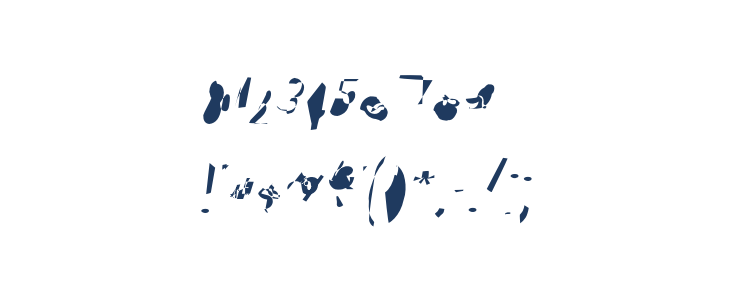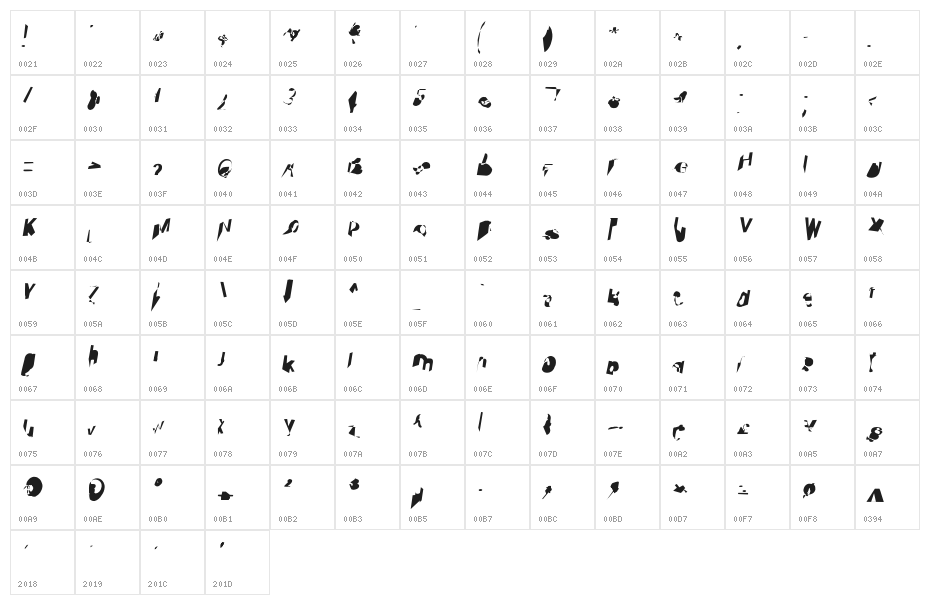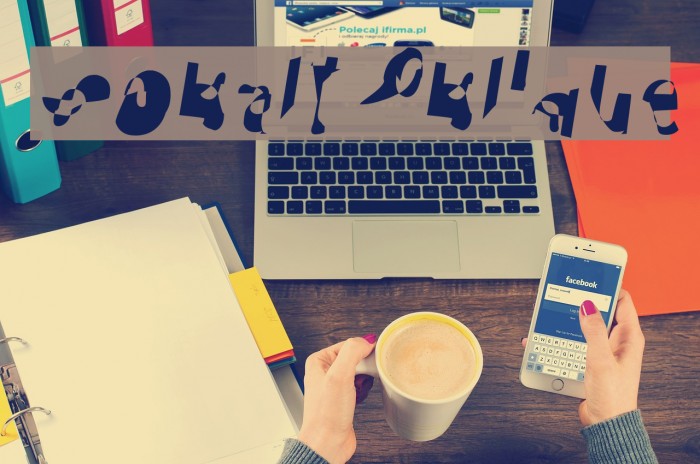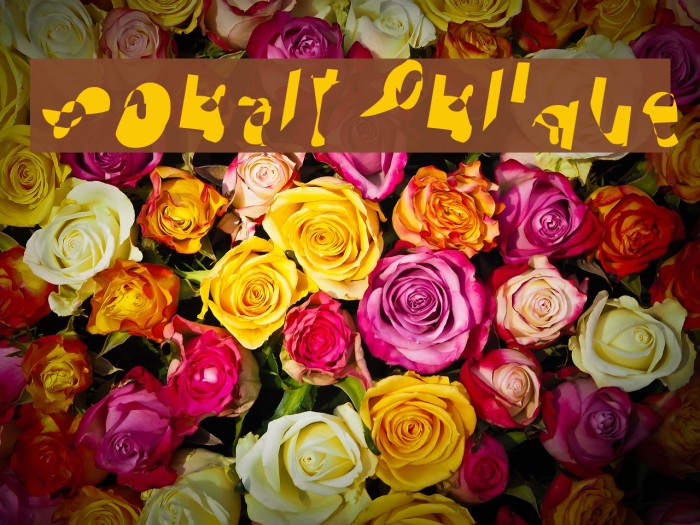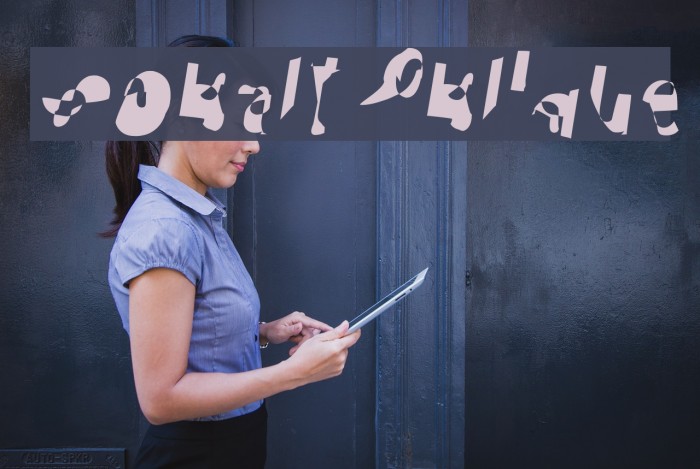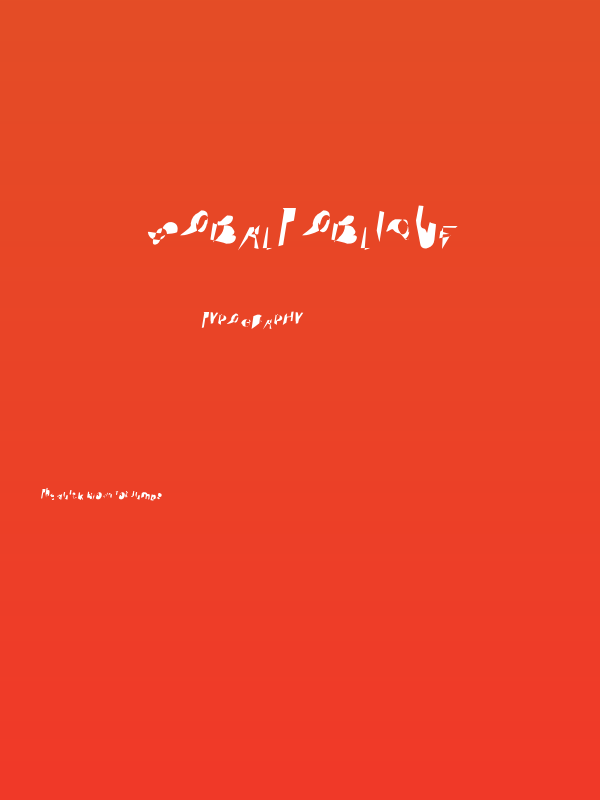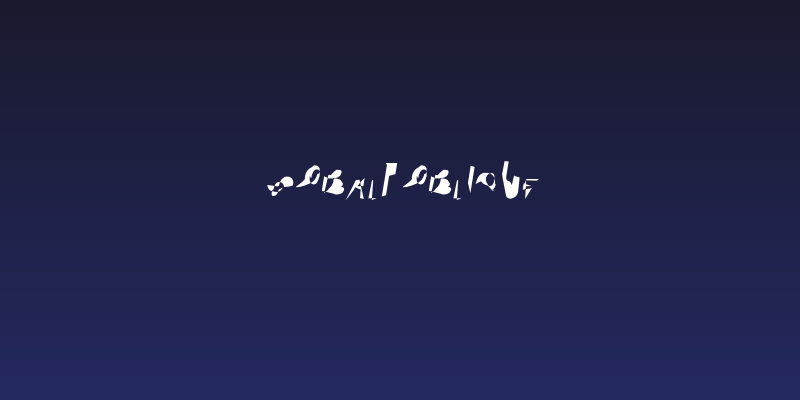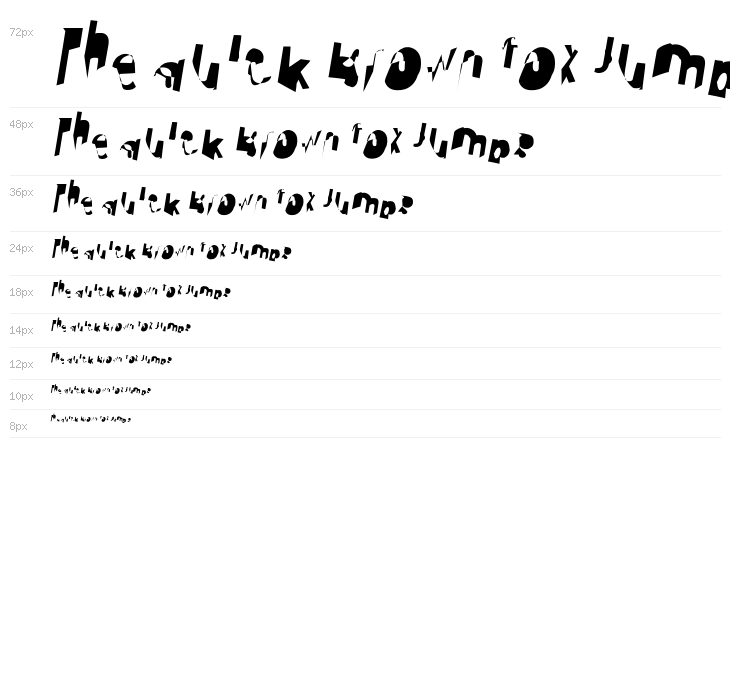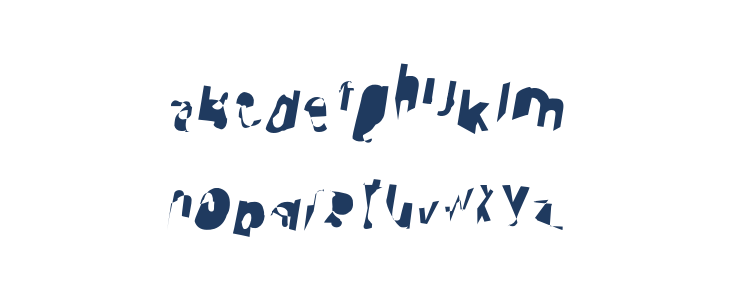
Cobalt Oblique Font
Cobalt Oblique Description
This font features a highly abstract and fragmented design, with each character appearing as if it has been shattered and reassembled in a dynamic, oblique manner. The strokes are bold and irregular, creating a sense of movement and energy. The uppercase and lowercase letters maintain a consistent style, with sharp angles and unexpected cuts that give the font a unique, avant-garde appearance. The numbers and special characters follow the same design principles, ensuring a cohesive look across all elements. This font is ideal for projects that require a bold statement and a modern, artistic touch.
| Overall Style | Modern, Artistic |
| Use Case | Logos, Posters, Album Covers |
| Proposed Projects | Ideal for modern art projects, edgy branding, album covers, and avant-garde posters. |